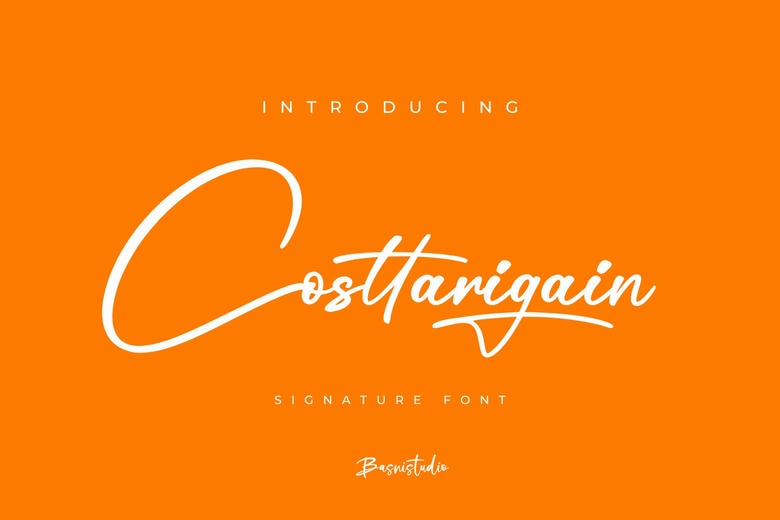
Costtarigain Font
Costtarigain is a Signature script font carefully created with a touch of elegance. Whether you’re looking for fonts for Instagram or calligraphy scripts for DIY projects, this font will turn any creative idea into a true piece of art!
Costtarigain Signature Script Font